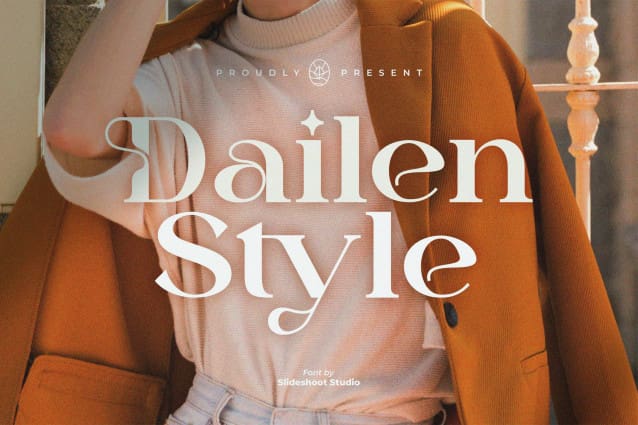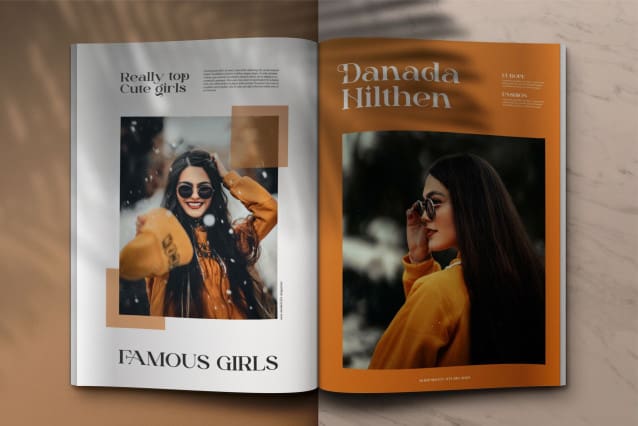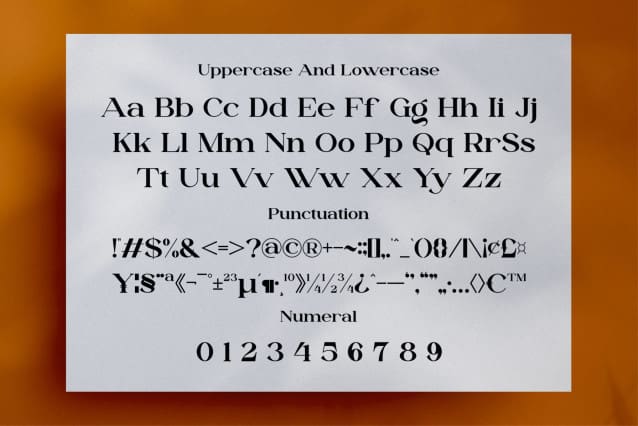
Dailen Style Font
Dailen Style Font is an elegant and classy font type for all branding and logo designs. This modern and classy Serif font has a beautiful character. This font is suitable for invitation card designs, cool logos, movie titles, movie names, business cards, book titles, brand names, and various other designs. Dailen Style Serif is a smooth serif font that exudes sophistication and the moment. Its stylish alternations and ligatures make this font a perfect partner for any project.